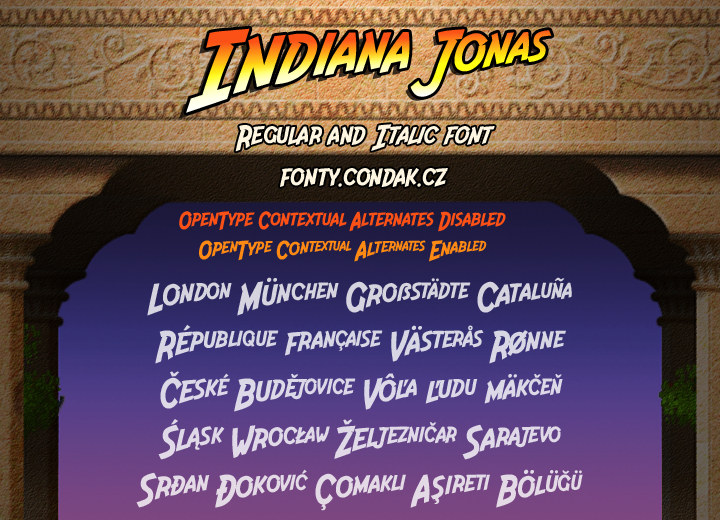
Font name: | Indiana Jonas |
Author: | V�t Čond�k |
Note by V�t Čond�k | |
My take on the font from Indiana Jones logo using OpenType features to simulate the perspective distortion. It's not the exact replica but I hope it keeps the vibe. =) The public version of the font intentionally does not include number 0. http://fonty.condak.cz/detail.php?font=indiana |